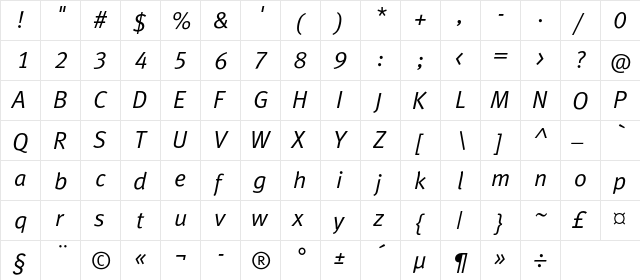
MetaNormalLFC Italic
Design Context for MetaNormalLFC Typeface
MetaNormalLFC takes a measured approach to typography — its balanced proportions and neutral character make it a reliable workhorse for both digital and print work. The dynamic lean of this cut emphasises speed and emphasis in any layout.
Pro Tip: Use MetaNormalLFC for emphasis, pull quotes, and subheadings where its slanted energy can add rhythm to the layout.